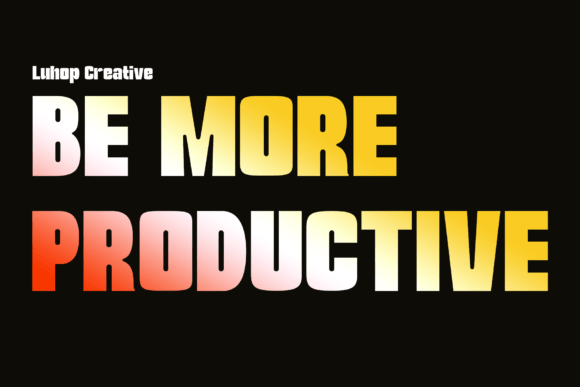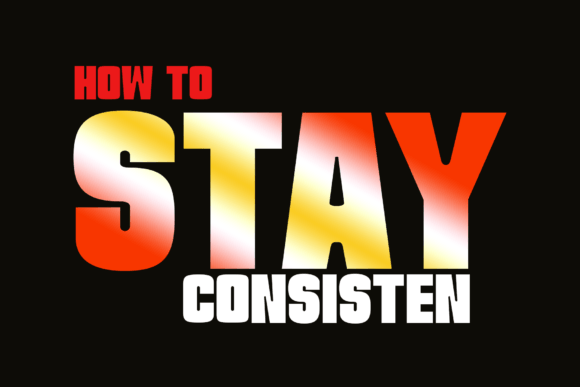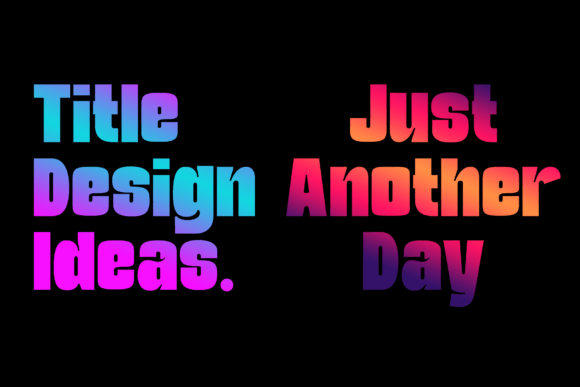
Introduction to Reuloh Font
As a designer, have you ever found yourself stuck on a creative project, desperately searching for the perfect font to bring your vision to life? The struggle is real, but what if I told you there’s a game-changing solution waiting for you? Enter the Reuloh Font, a stunning set of modern geometric fonts designed to elevate your designs to new heights.
With its sleek, high-quality design and numerous style combinations, the Reuloh Font is the ultimate design resource for creatives. Whether you’re working on a branding project, creating a graphic novel, or crafting a beautiful logo, this font is sure to impress. And the best part? You can download it for free, complete with a transparent background, making it a versatile addition to your design toolkit.
So, what are you waiting for? Dive into the world of Reuloh Font and discover a whole new level of design possibilities.
Key Features of Reuloh Font
- High-quality design resource ideal for creative projects, including graphic design, digital art, and print media.
- Features a transparent background, allowing for effortless layering and blending with other design elements.
- Unique, modern design aesthetic that adds a touch of sophistication and elegance to any creative project.
Honest Review: Reuloh Font
I recently stumbled upon the Reuloh Font, and I must say, it’s a fantastic addition to any designer’s toolkit. This free download is perfect for creative projects that require a touch of elegance and sophistication.
- High-quality design that exudes professionalism ✨
- Transparent background, making it easy to overlay on any image ✨
- Perfect for logos, branding, and typography-based designs ✨
- Free download, making it an excellent resource for designers on a budget ✨
However, I did notice a few limitations:
- Only available in a limited number of font weights and styles ⚠️
- May not be as versatile as some other fonts on the market ⚠️
Overall, I’m impressed with the Reuloh Font. Its high quality and versatility make it an excellent choice for designers working on creative projects. While it may have some limitations, it’s a great resource to have in your toolkit. I’d definitely recommend it to anyone looking for a stylish and professional font.
Using Reuloh Font in Creative Projects
Tips for Getting the Most Out of Reuloh Font
For the best results, use Reuloh Font on a transparent background to create a seamless design. You can also experiment with different font sizes, styles, and colors to add depth and visual interest to your project.
Reuloh Font is ideal for use in various creative projects, such as logos, brochures, flyers, and social media graphics. Its high-quality design makes it perfect for professional and personal projects alike.
Alternatives to Reuloh Font
The Alex Brush Font is a high-quality, elegant script font perfect for creative projects that require a touch of sophistication. It features a beautiful, cursive design with a transparent background, making it ideal for use on a variety of design resources. When to use: Wedding invitations, wedding stationery, and other special occasion designs. Comparison to Reuloh Font: While both fonts have a similar elegant feel, Alex Brush Font has a more refined and polished look, making it a better choice for high-end designs.
The Great Vibes Font is a fun, energetic script font that’s perfect for creative projects that need a playful touch. It features a bold, dynamic design with a transparent background, making it ideal for use on a variety of design resources. When to use: Social media graphics, event promotions, and other fun and lively designs. Comparison to Reuloh Font: While both fonts have a similar playful feel, Great Vibes Font has a more carefree and spontaneous look, making it a better choice for casual and creative designs.